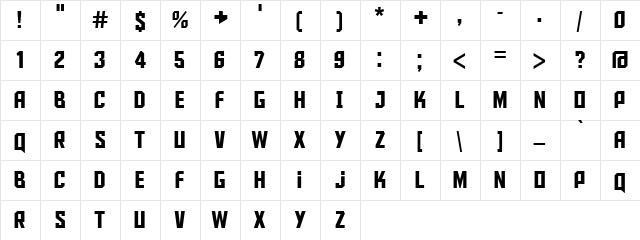
Aldo the Apache Regular
| Foundry | AJ Paglia |
| Designer | AJ Paglia |
Design Context for Aldo the Apache Typeface
Aldo the Apache offers clean, dependable letterforms without strong stylistic allegiance, making it a practical choice for designers who need flexibility.